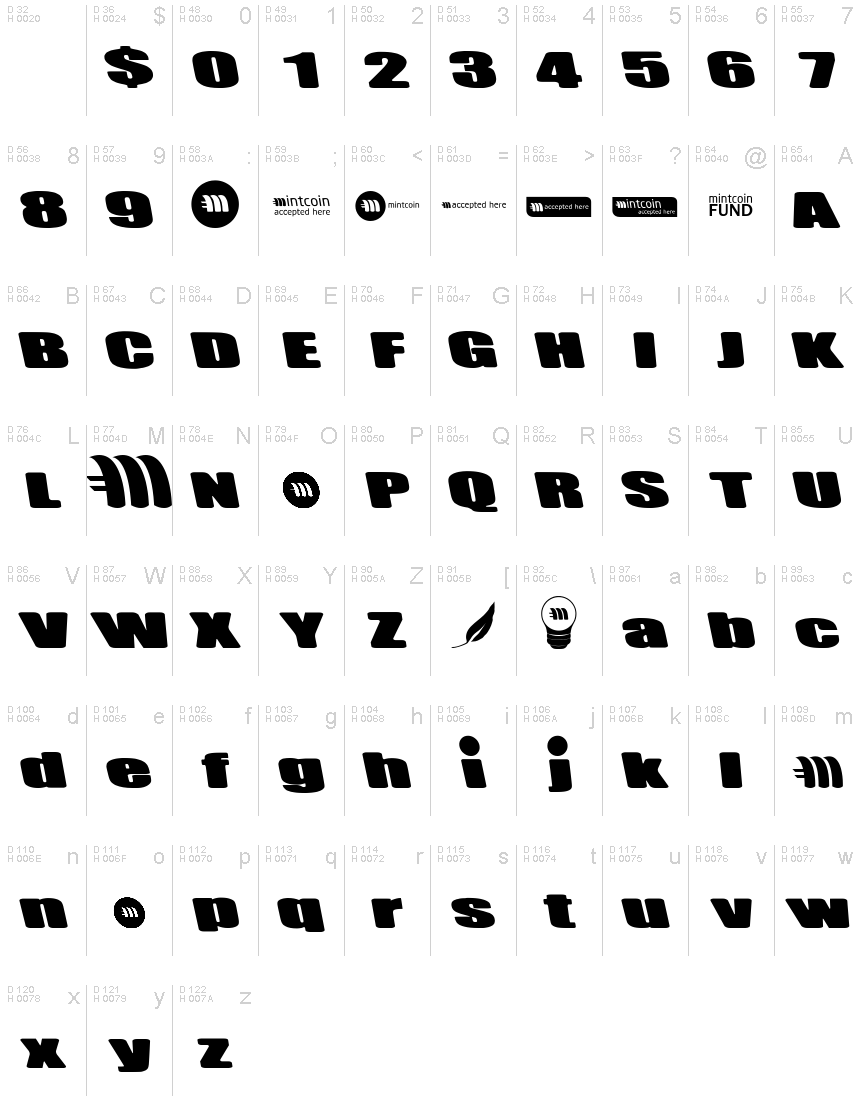
Mintcoin
Mintcoin, a bold display font crafted by Xerographer Fonts' Max Infeld, commands attention with its striking geometric forms and confident presence. This typeface exudes a sense of modern sophistication, its clean lines and circular motifs conveying a sleek, minimalist aesthetic.
Mintcoin's versatility extends beyond its visual appeal, as its bold, distinctive style can elevate a wide range of projects. From impactful posters and eye-catching advertisements to bold typographic treatments in digital interfaces, this font has the potential to bring a fresh, modern touch to diverse design applications.